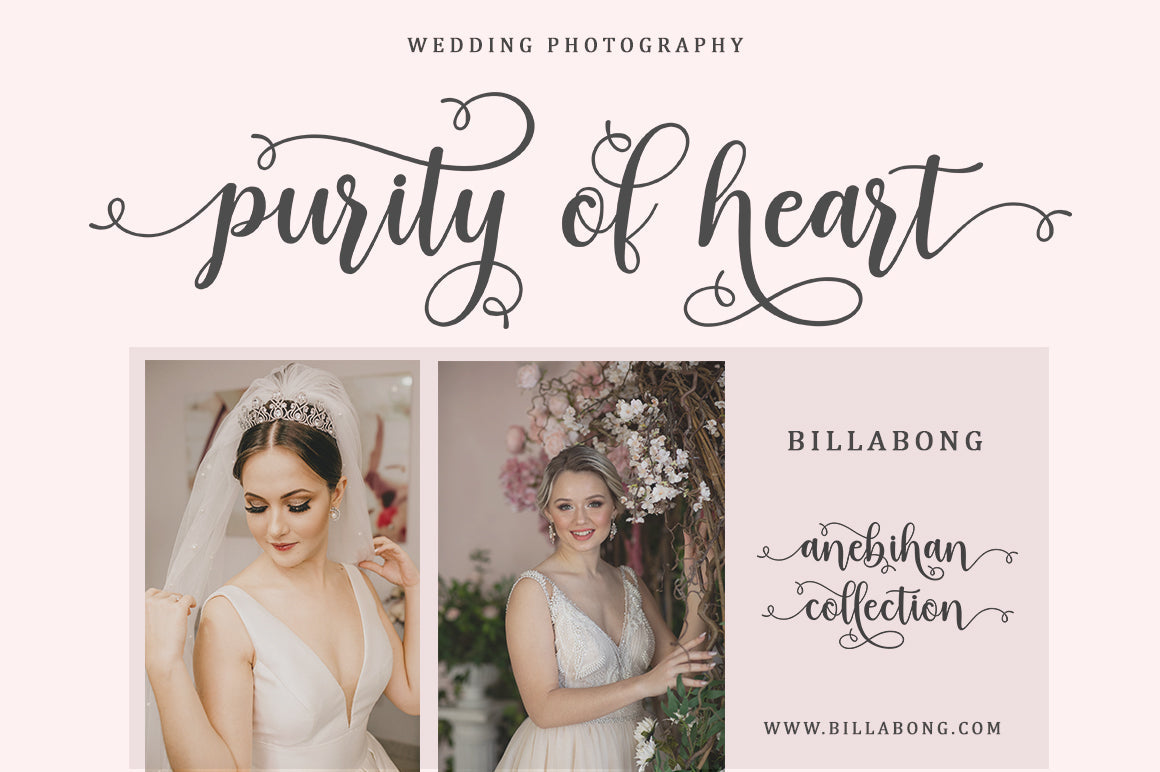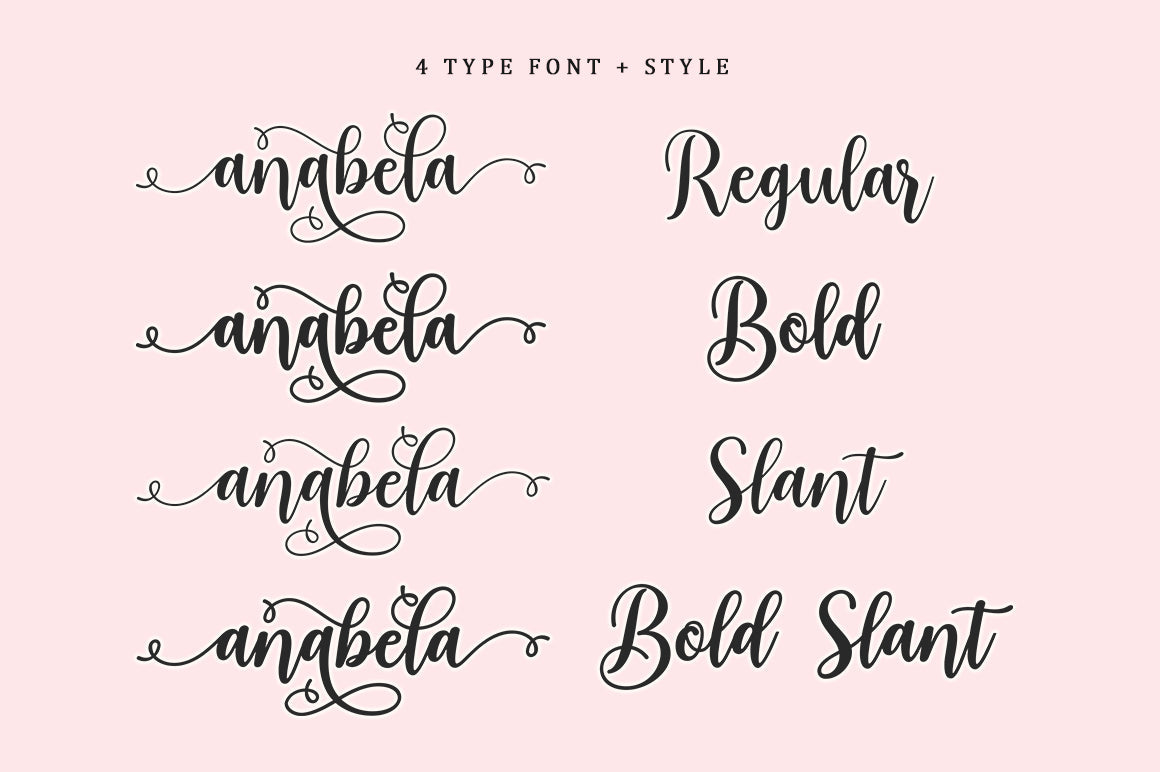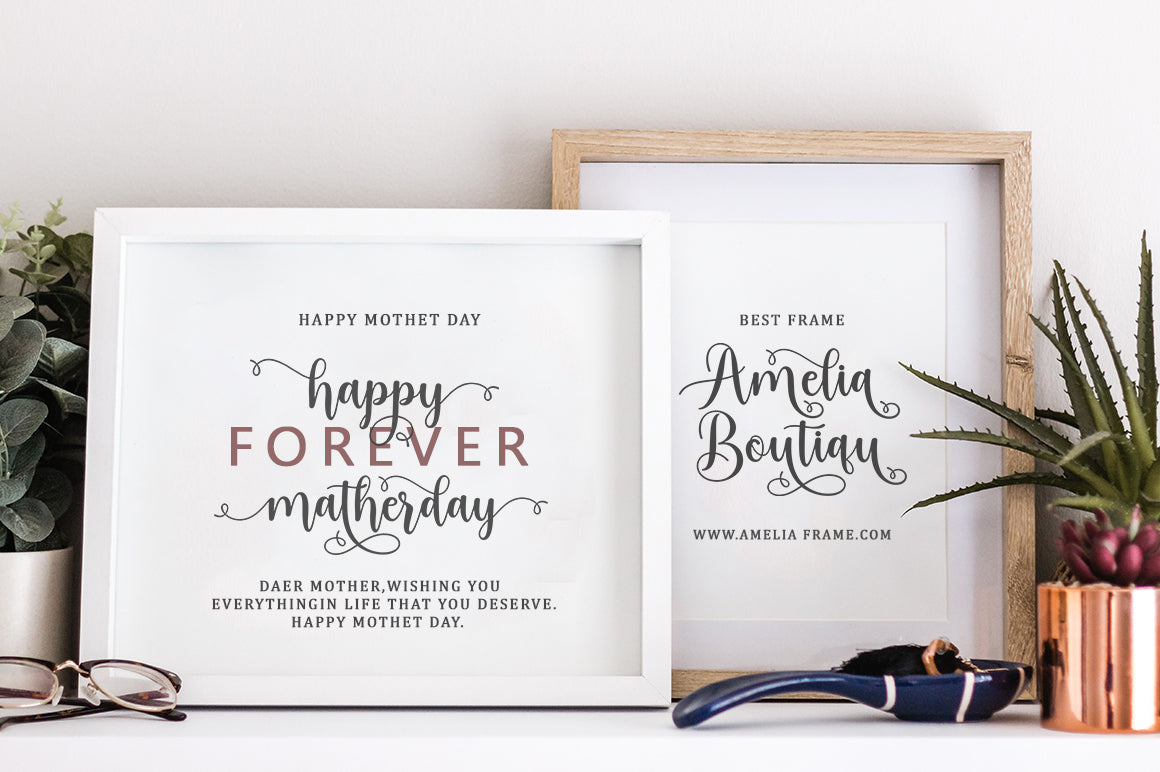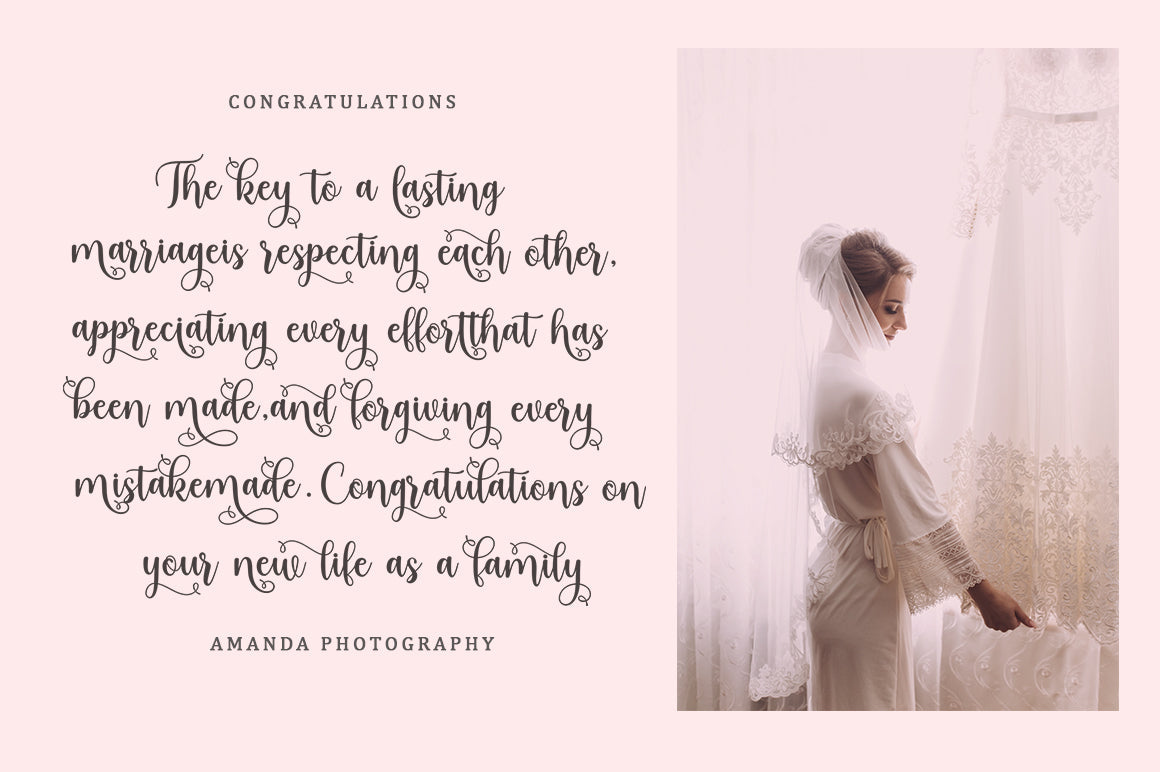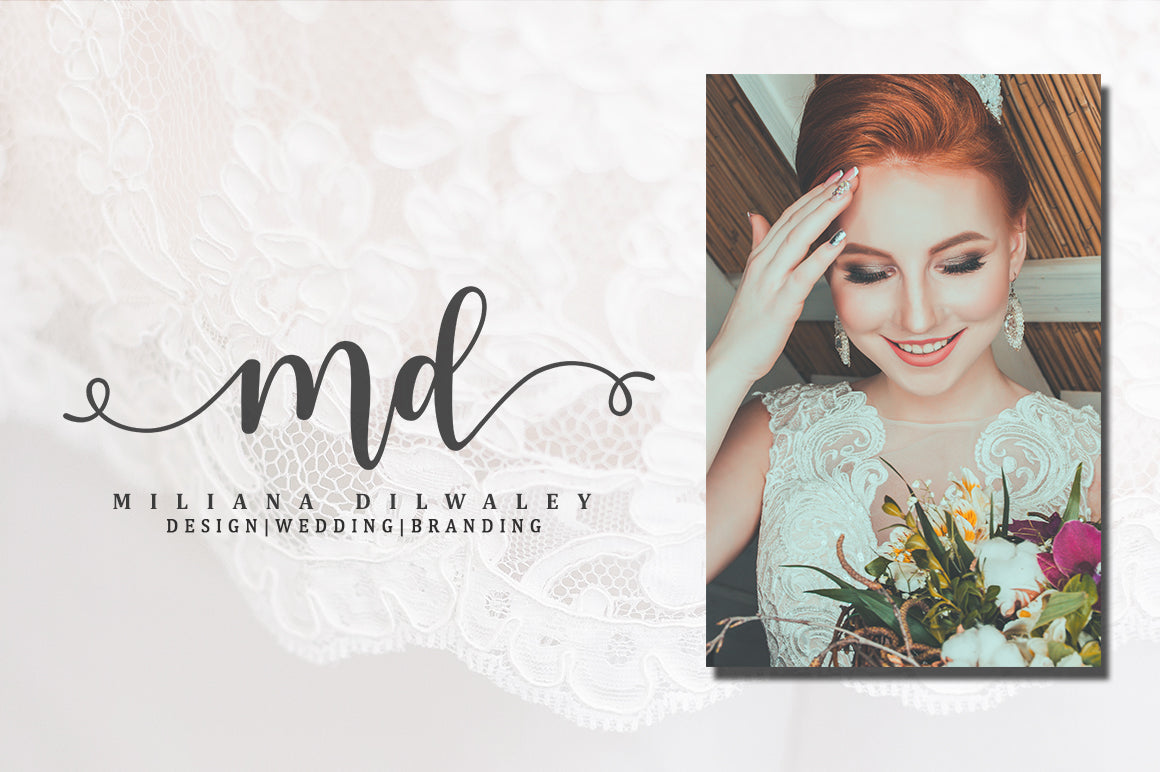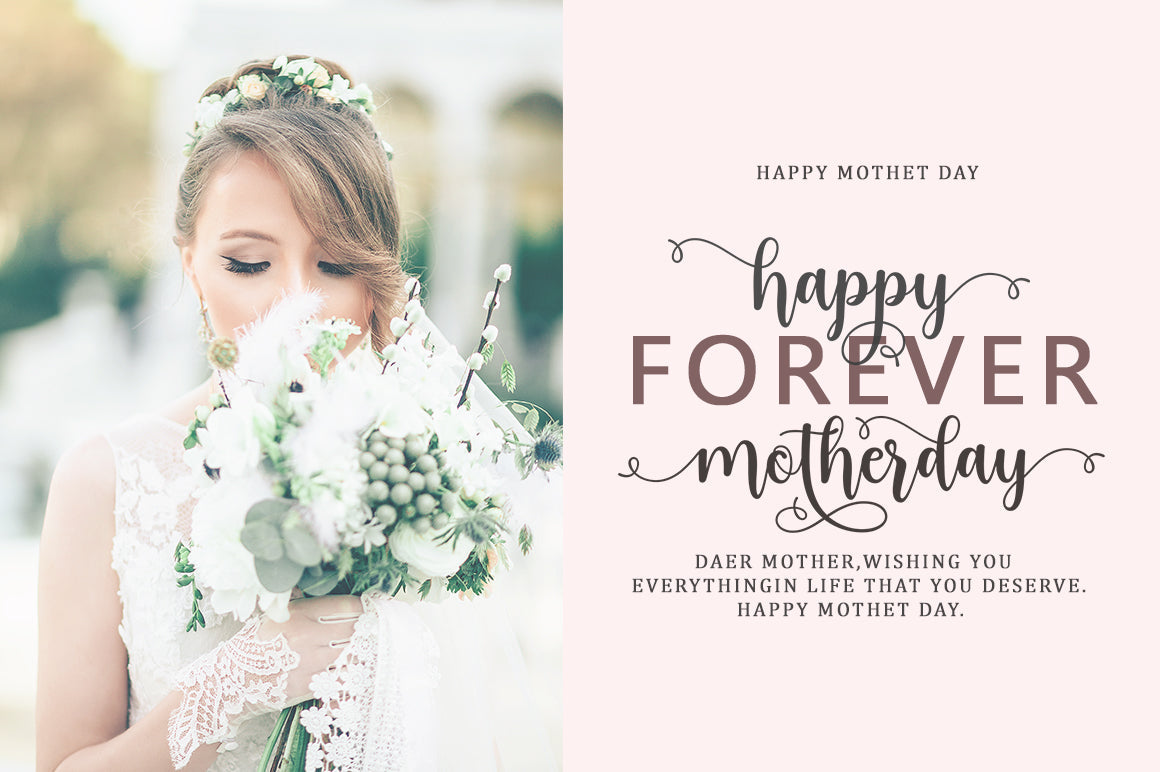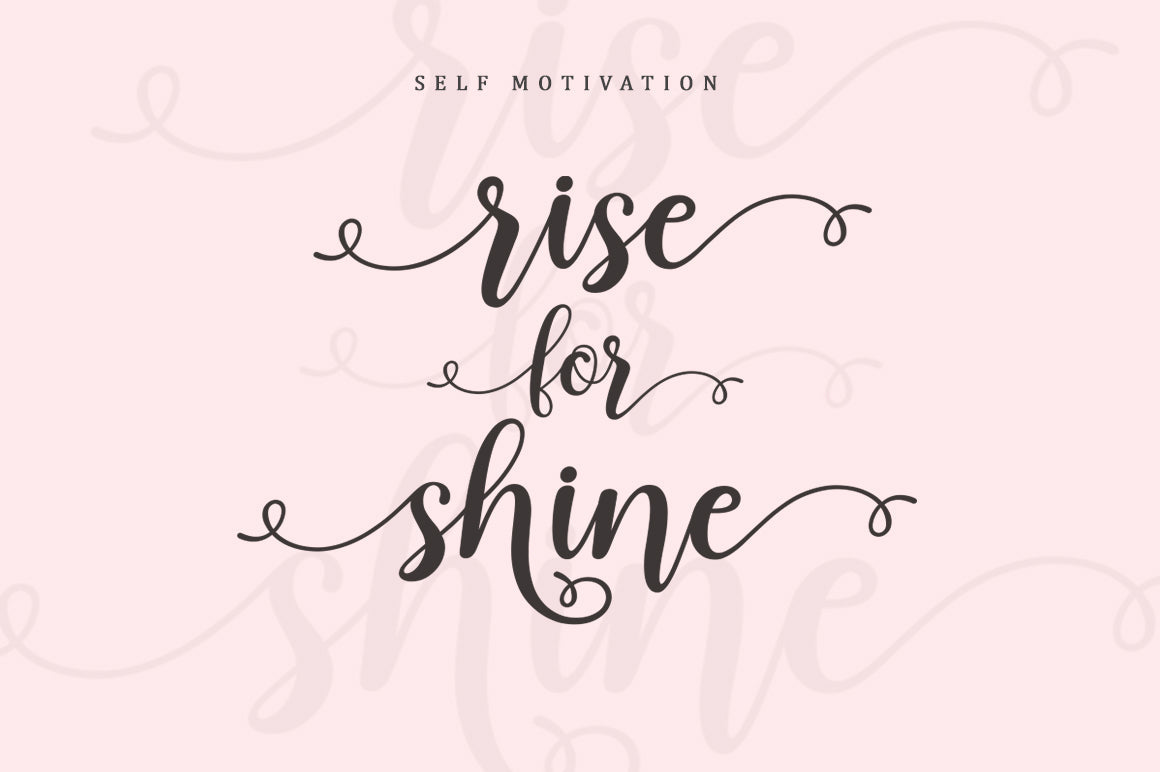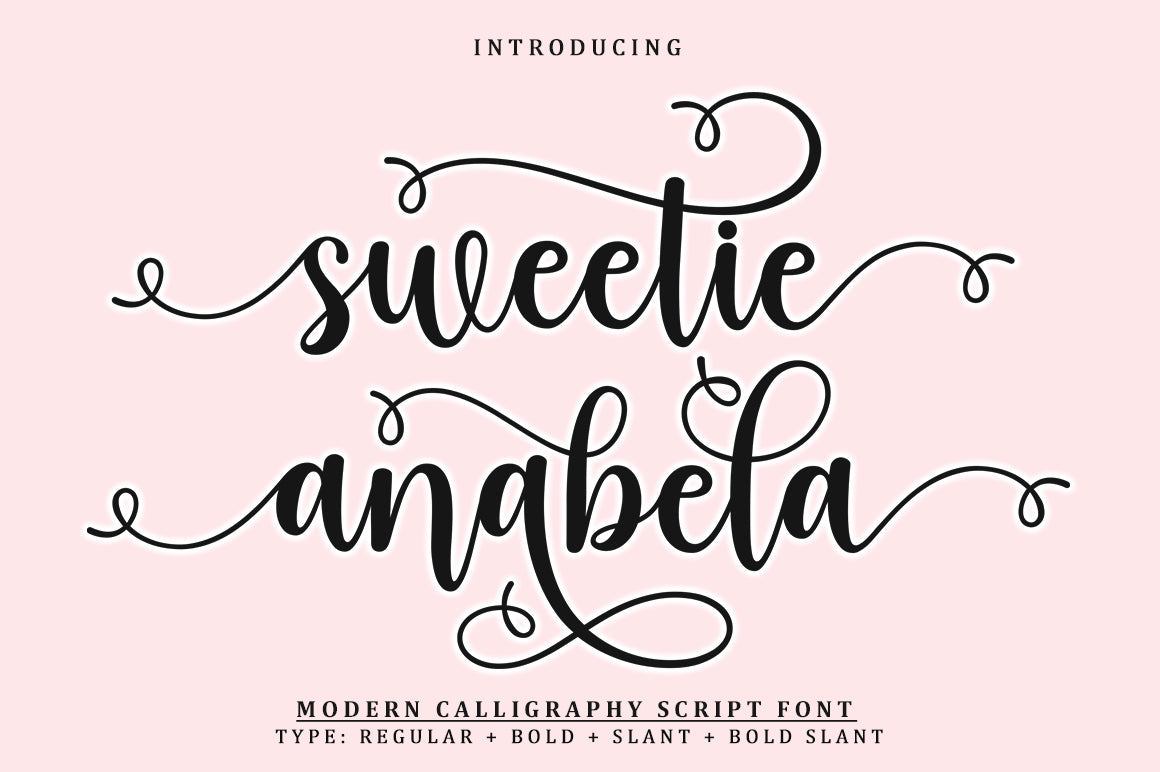
Sweetie Anabela – Modern Calligraphy
About Sweetie Anabela – Modern Calligraphy
Sweetie Anabela Script is a modern calligraphy font featuring basic variations, smooth lines, a classic and elegant touch. I made this Sweetie Anabela font inspired by classic calligraphy concepts and became more modern, and I also added some very interesting and alternative alternates when we applied it, I also tried to run it in a different way which resulted in this Flower Spring script font. . . Sweetie Anabela is attractive because it is sleek, clean, feminine, sensual, glamorous, simple and very easy to read, because there are lots of fancy letter joints. I also offer a decent number of stylistic alternatives for some of the letters. Classic style is very suitable to be applied in various formal forms such as invitations, labels, restaurant menus, logos, fashion, make up, stationery, novels, magazines, books, greeting/wedding cards, packaging, labels or all kinds of advertising purposes. . . . . . Sweetie Anabela has alternative Glyph characters, including multiple language support. With OpenType features with alternate styles and elegant binding. The OpenType features work automatically, but you can access them manually and for the best results it takes for your creativity to combine variations of these Glyphs. Files include: OTF, TTF • Sweetie Anabela • Sweetie Anabela Bold • Sweetie Anabela Slant • Sweetie Anabela Bold Slant To enable the OpenType Stylistic alternative, you need a program that supports OpenType features such as Adobe Illustrator CS, Adobe Indesign & CorelDraw X6-X7, Microsoft Word 2010 or later. There are additional ways to access the alternative/swash, using the Character Map (Windows), Nexus Fonts (Windows), Font Book (Mac) or a software program such as PopChar (for Windows and Mac). How to access all alternative characters: https://www.youtube.com/watch? v = Go9vacoYmBwhttps://www.youtube.com/watch? v = XzwjMkbB-wQhttps://www.yo… need help or have questions let me know. I’m happy to help. Thanks & Congratulations on the Design!